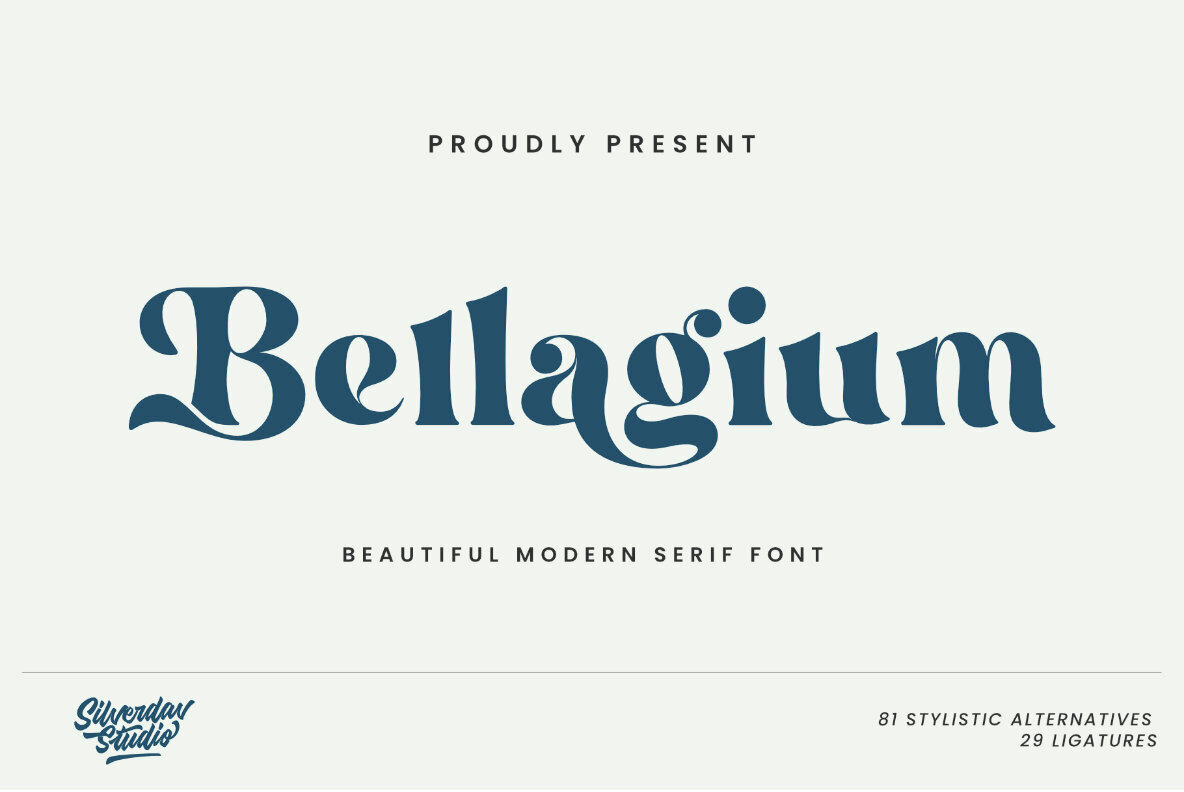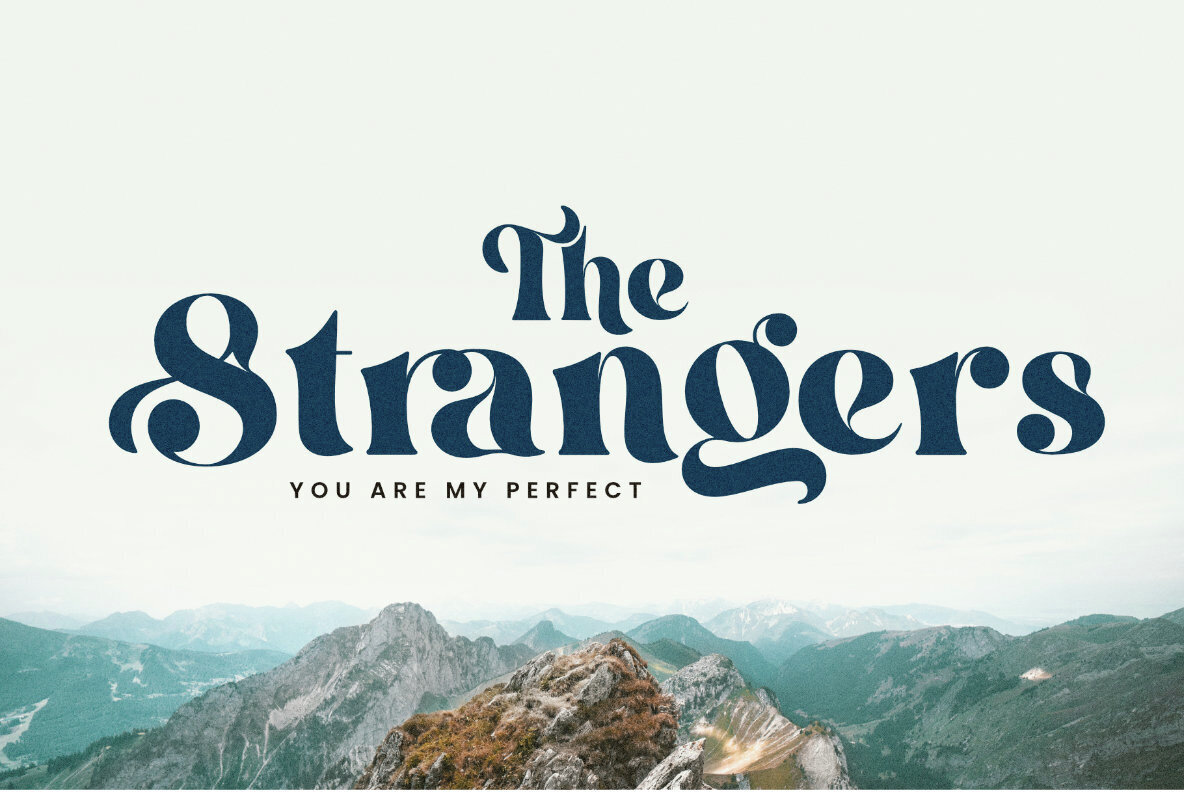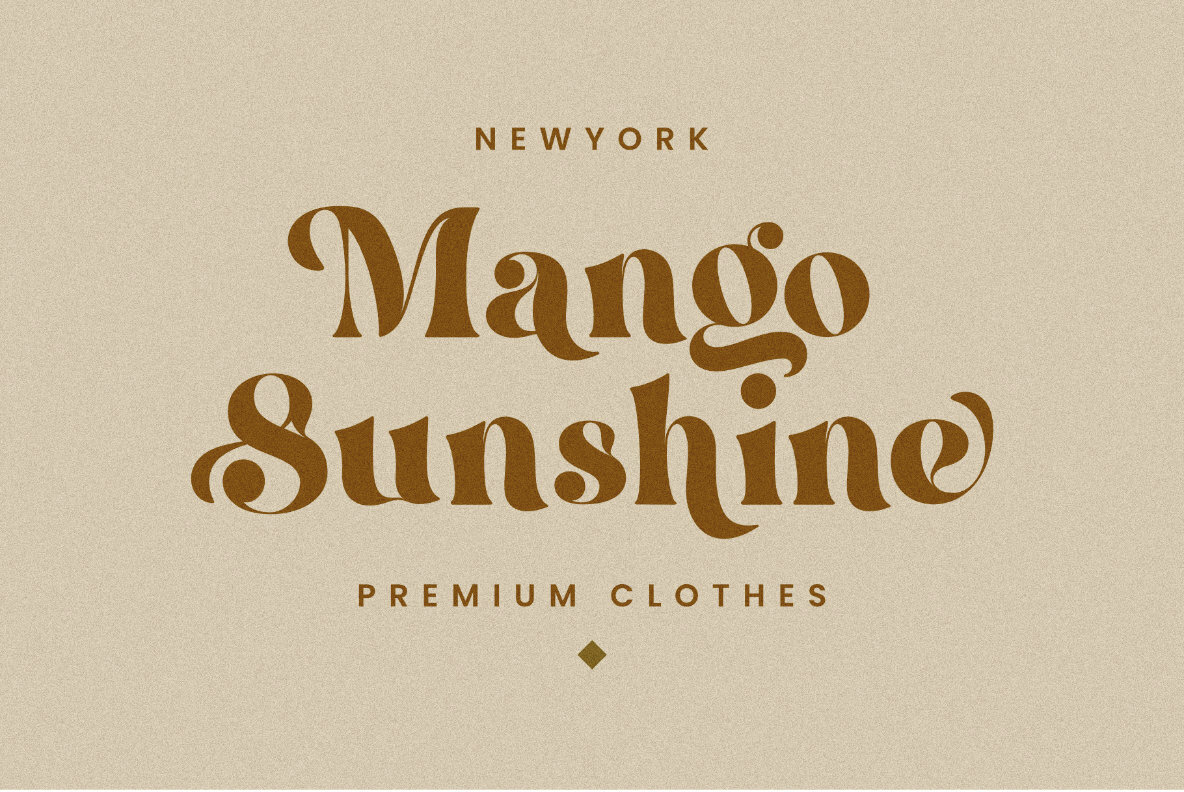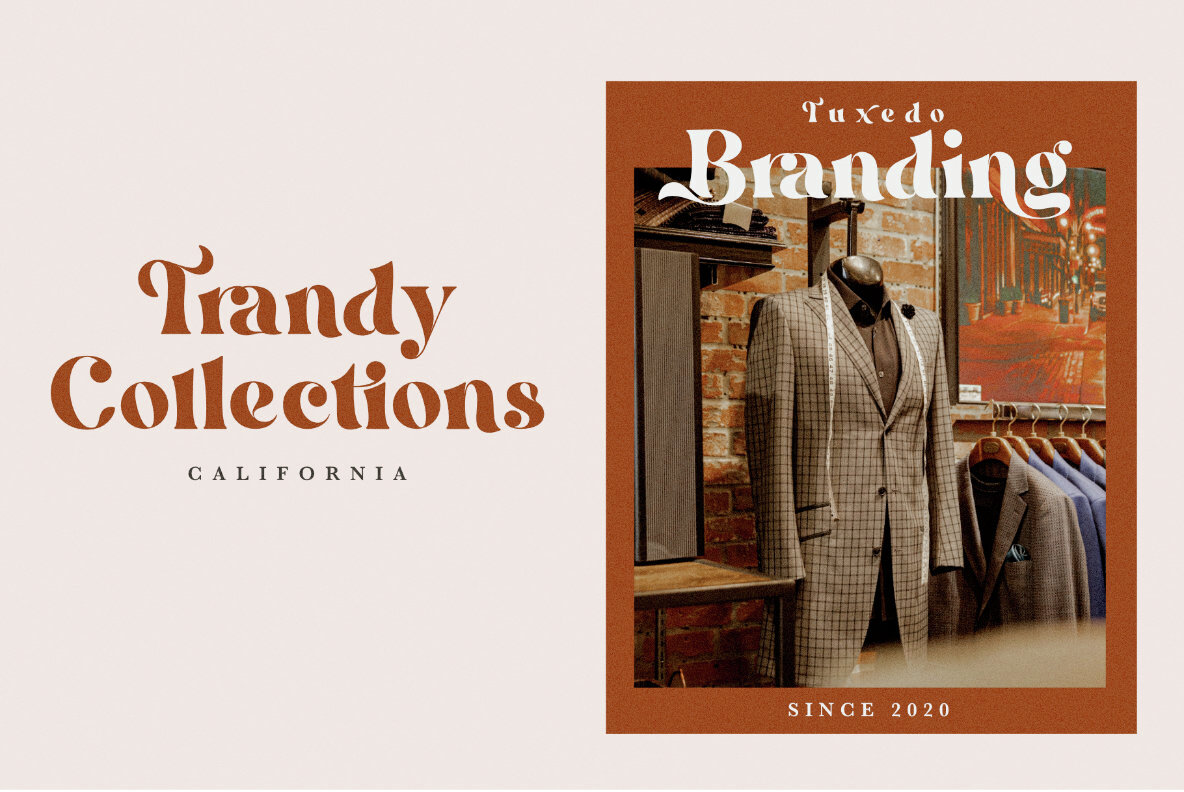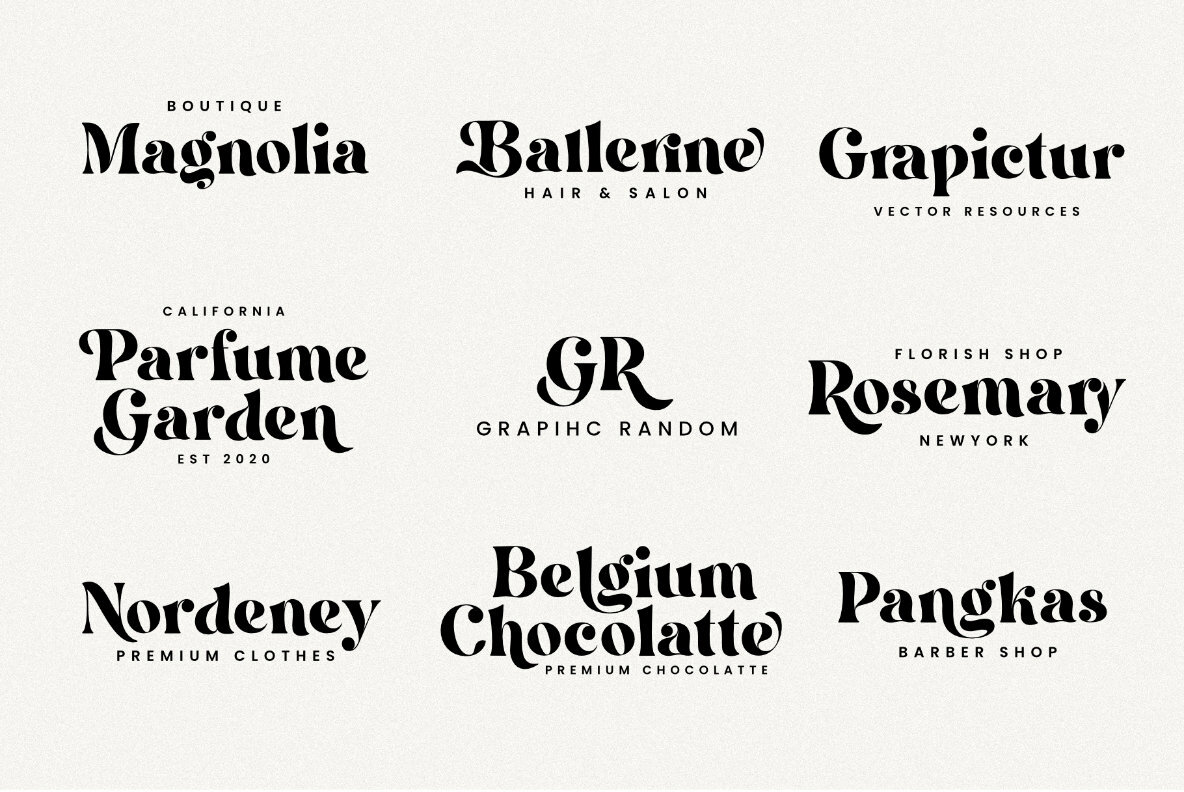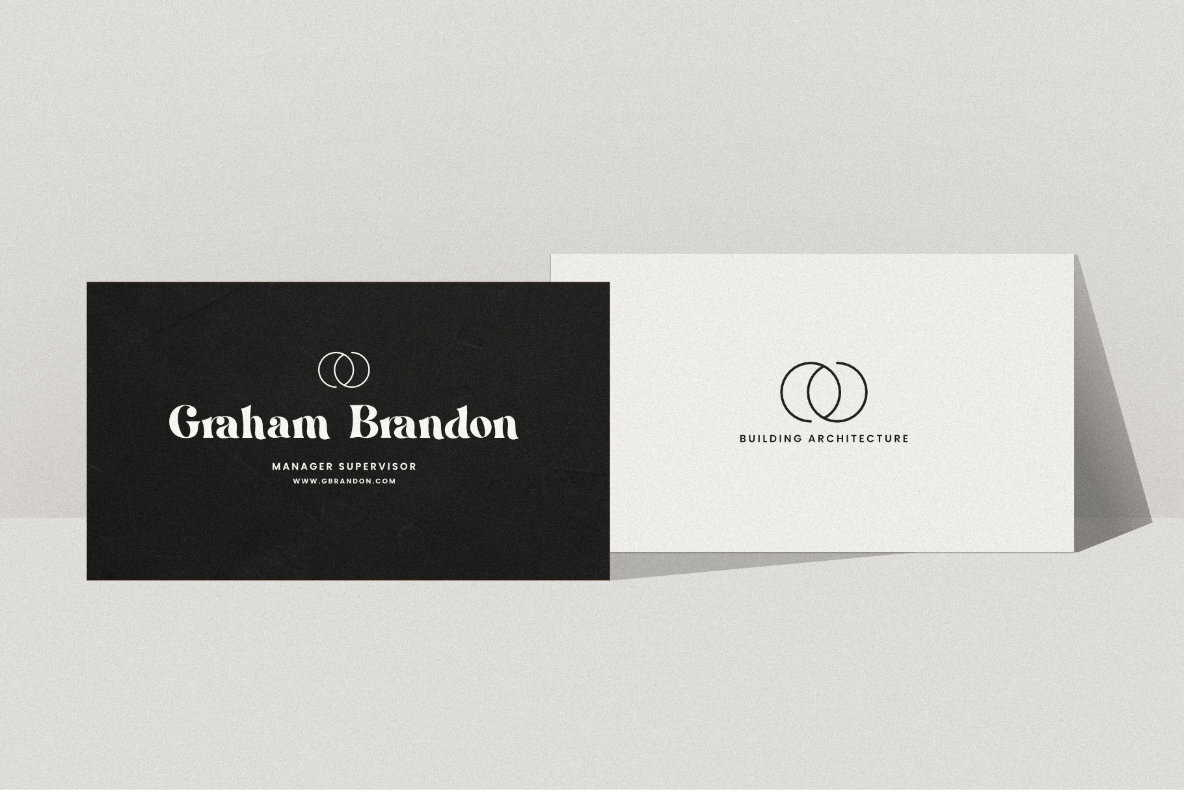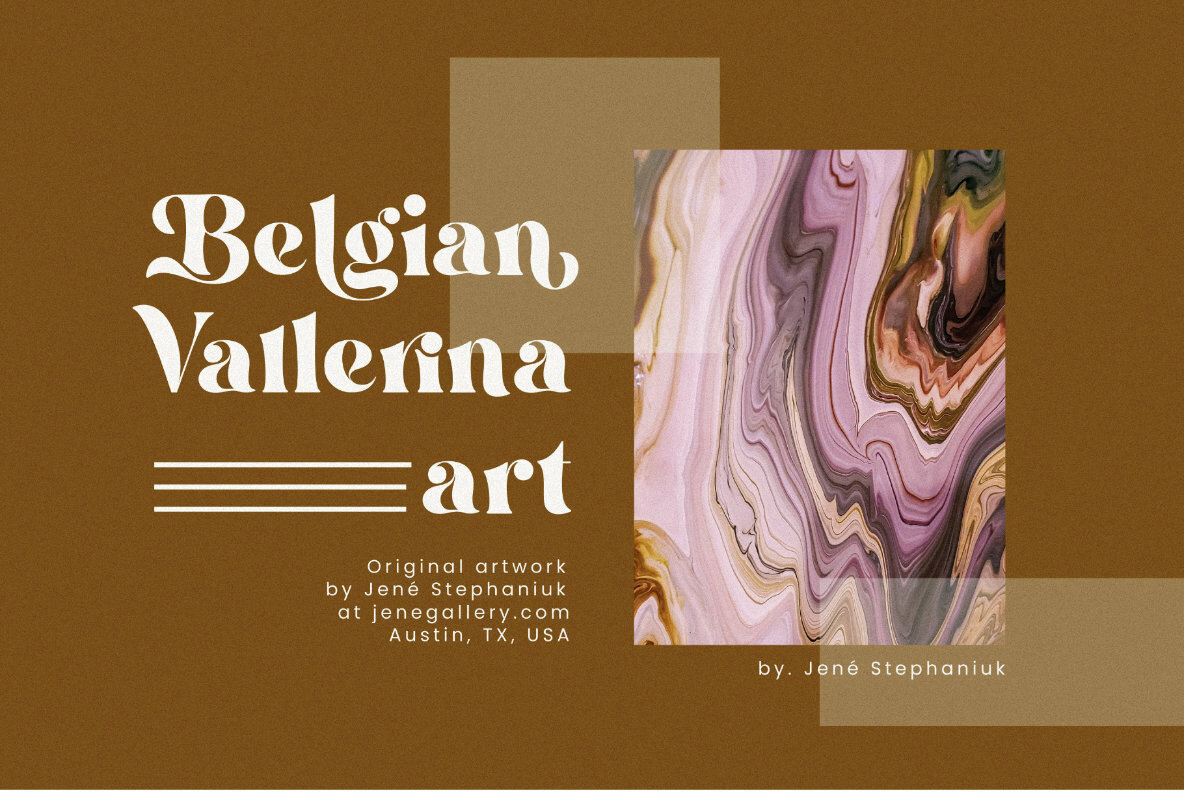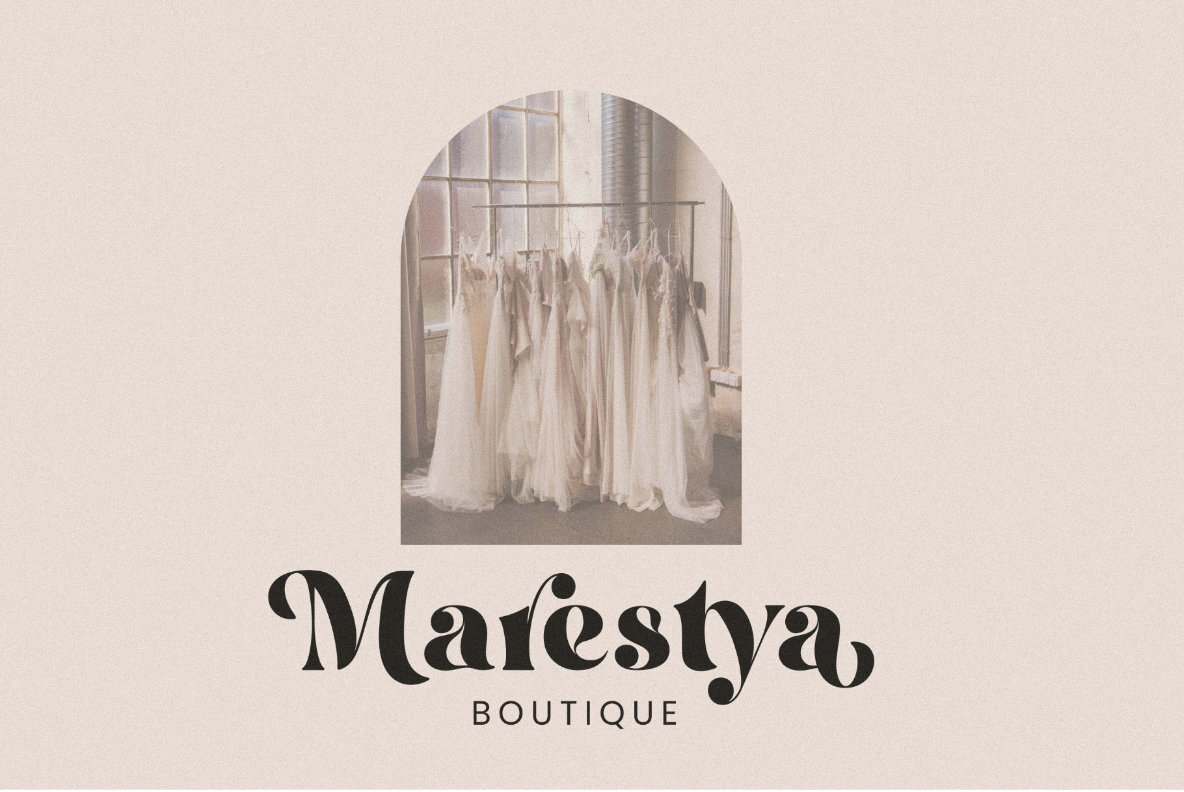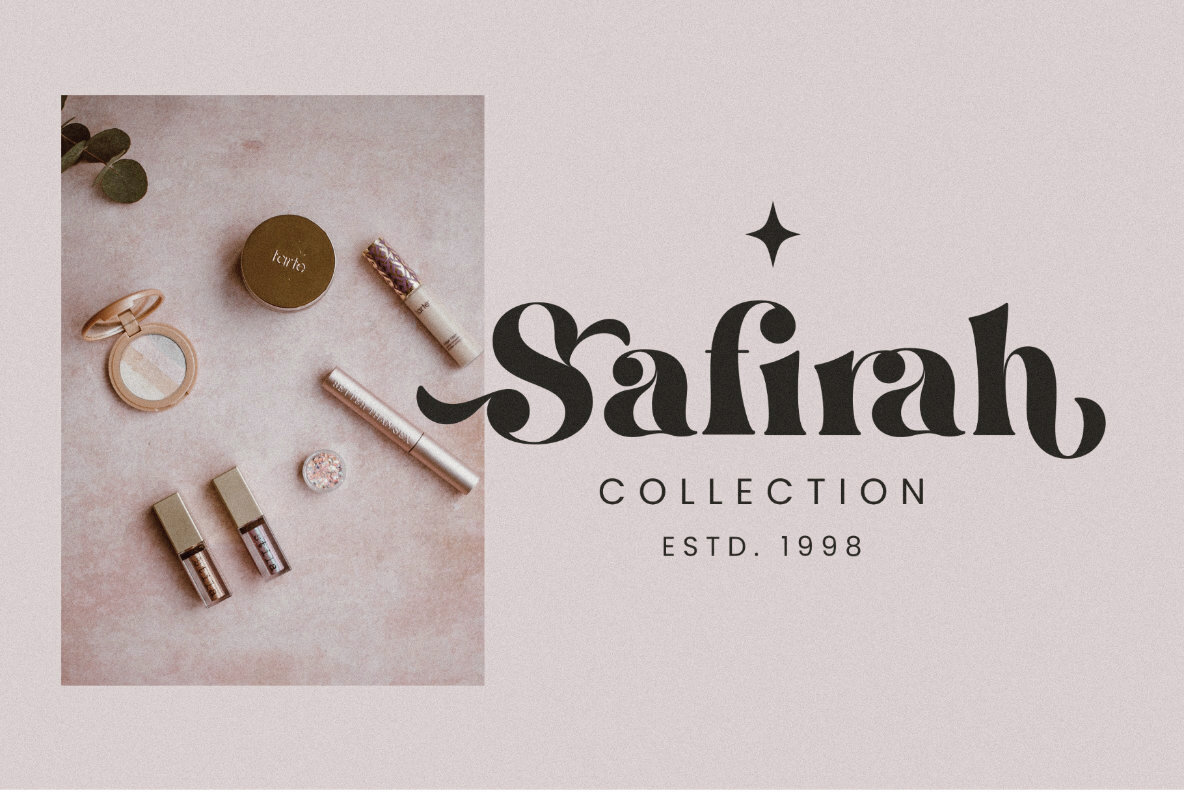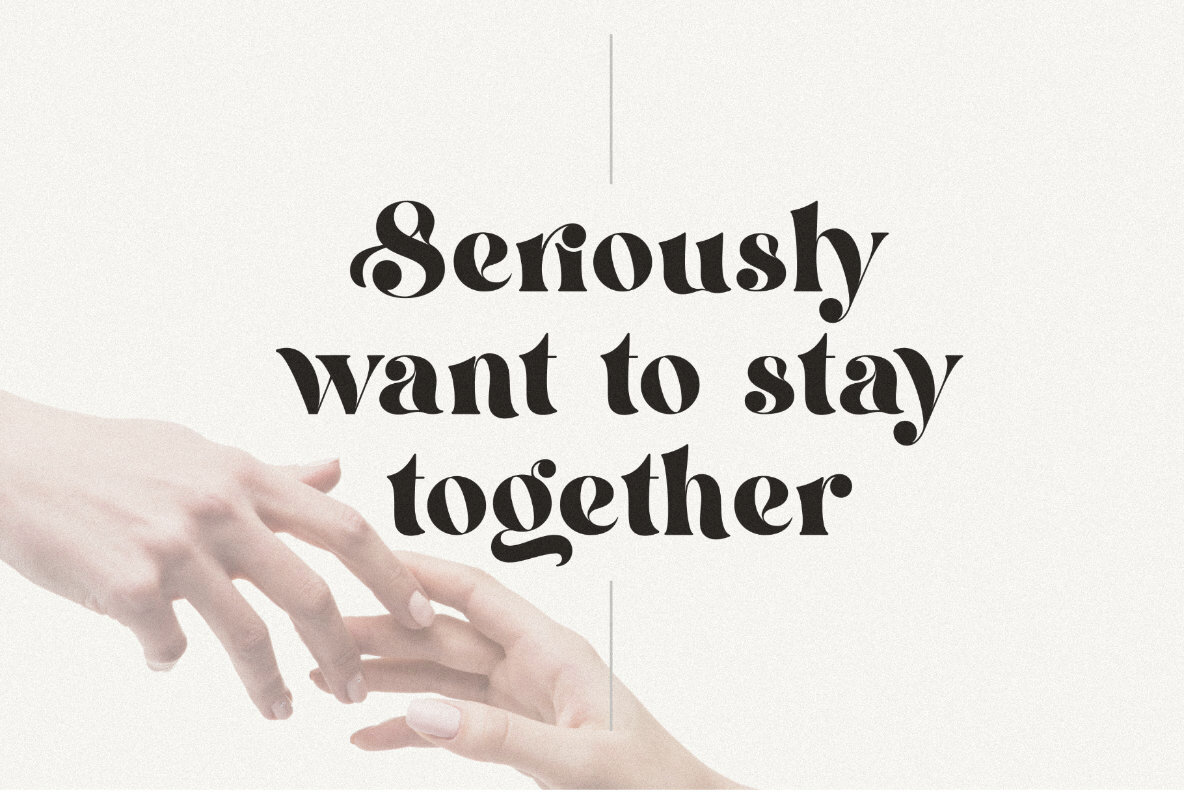
Kongfilk
Kongfilk is a truly distinctive serif font designed by David Kasidi, featuring a modern style with unique curves that add a special and glamorous touch to your designs.Kongfilk: Modern Serif Font With Unique Curves